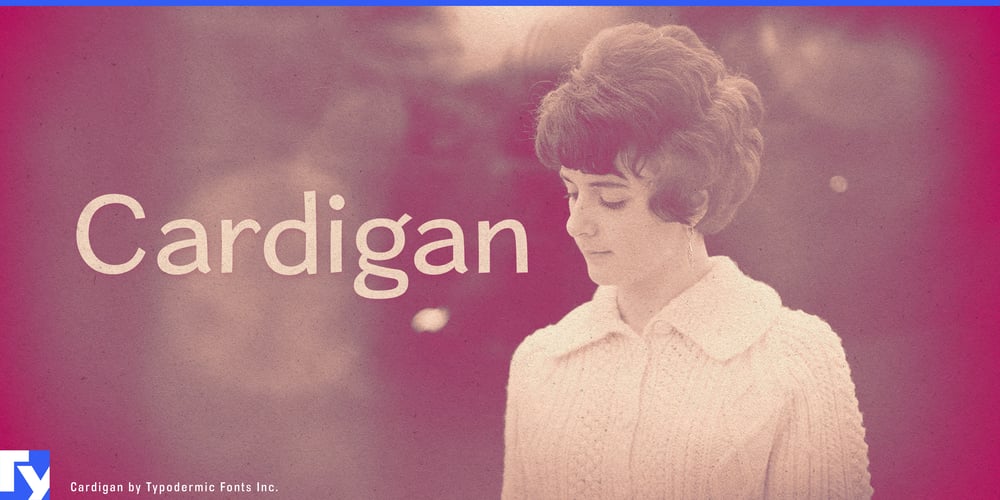
Cardigan Font Family was designed by Ray Larabie and published by Typodermic. Cardigan contains 6 styles and family package options. Wrap yourself in the typographic equivalent of a warm embrace with Cardigan, a sans-serif font family that exudes comfort without sacrificing professionalism. This versatile typeface strikes the perfect balance between casual approachability and refined readability, making it an ideal choice for projects that demand both warmth and clarity.Cardigan’s straightforward letterforms invite the eye to linger, making it perfect for long-form text. Imagine settling into your favorite reading nook, a steaming mug at your side, as Cardigan guides you through page after page with its gentle, unassuming presence. The italics add a touch of handwritten charm, as if a friend were sharing their thoughts in a heartfelt letter. With three thoughtfully crafted weights, Cardigan offers the flexibility to fine-tune your typographic voice. From the whisper of its lightest cut to the confident statement of its boldest, this font family allows you to adjust the visual temperature of your designs with precision.But Cardigan’s cozy appeal isn’t limited by language barriers. Fluent in a vast array of Latin-based European writing systems, it spreads its comfort across cultures, from the fjords of Norway to the sun-drenched shores of the Mediterranean. This linguistic versatility makes Cardigan an invaluable tool for designers crafting content for diverse, global audiences.Choose Cardigan when you need typography that doesn’t just communicate, but connects. It’s perfect for lifestyle blogs, craft instructions, wellness publications, or any project that calls for a touch of typographic hygge. With Cardigan, every paragraph becomes an invitation to slow down, engage, and enjoy the simple pleasure of reading.In a world that often feels rushed and impersonal, Cardigan stands as a reminder of the power of comfort in communication. It’s more than a font—it’s a typographic hug, ready to envelop your audience in a world of warmth and welcome.